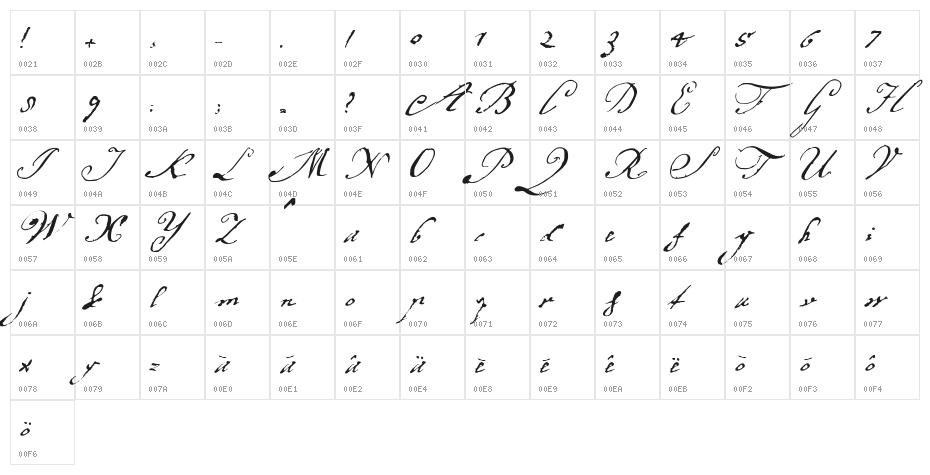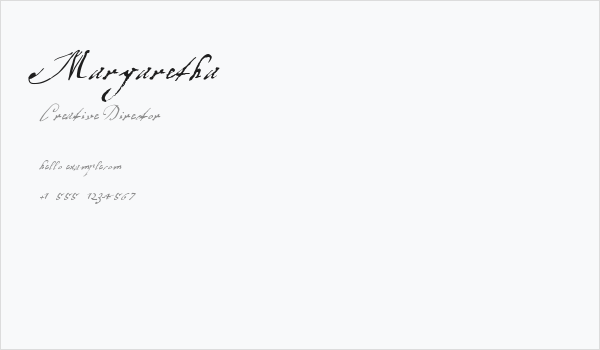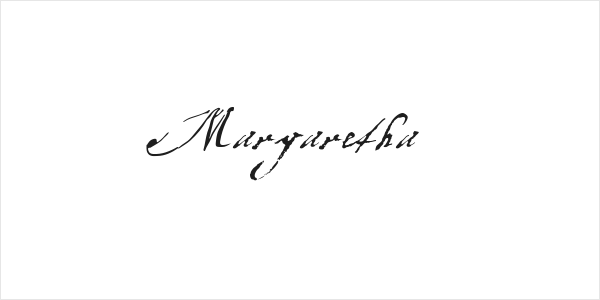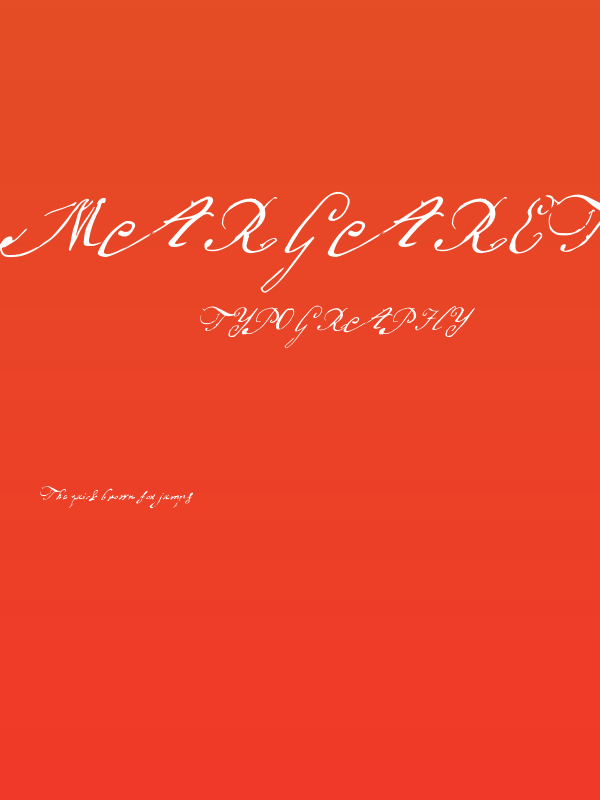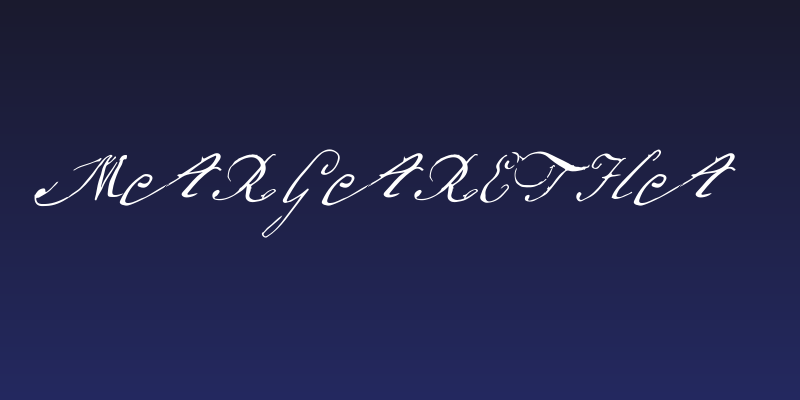
Margaretha Font
Margaretha Description
This font exudes an elegant and classic script style, characterized by its flowing, cursive strokes and intricate detailing. The uppercase letters are ornate, with sweeping lines and flourishes that give a sense of sophistication and grace. The lowercase letters maintain a consistent cursive style, with smooth connections between characters, enhancing the fluidity of the text. The numerals and special characters follow the same stylistic cues, ensuring a cohesive appearance across all elements. This font is ideal for projects that require a touch of elegance and tradition, such as wedding invitations, formal event programs, or luxury branding.
| Use Case | Headlines, Invitations, Branding |
| Proposed Projects | Wedding invitations, formal event programs, luxury branding, elegant stationery. |